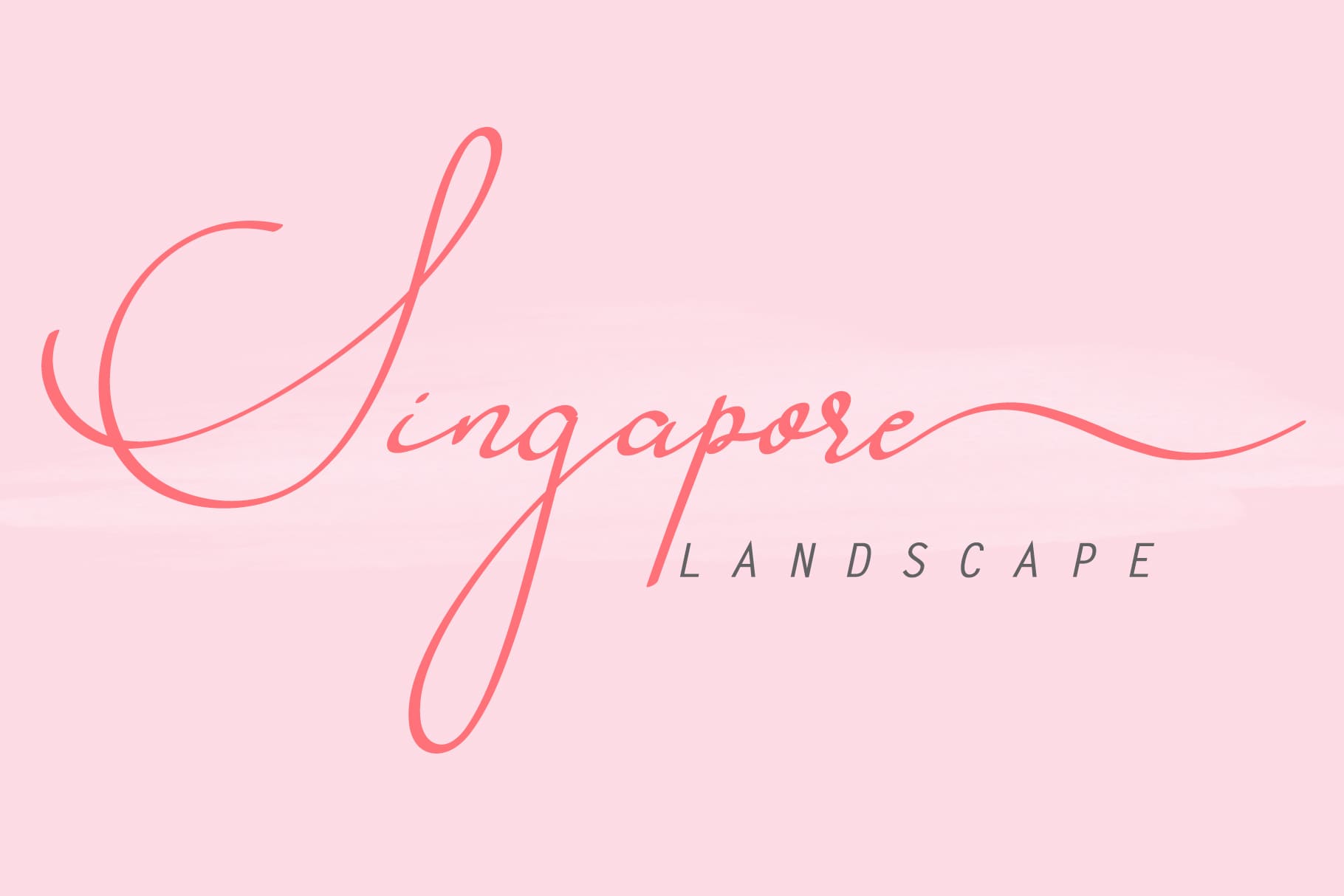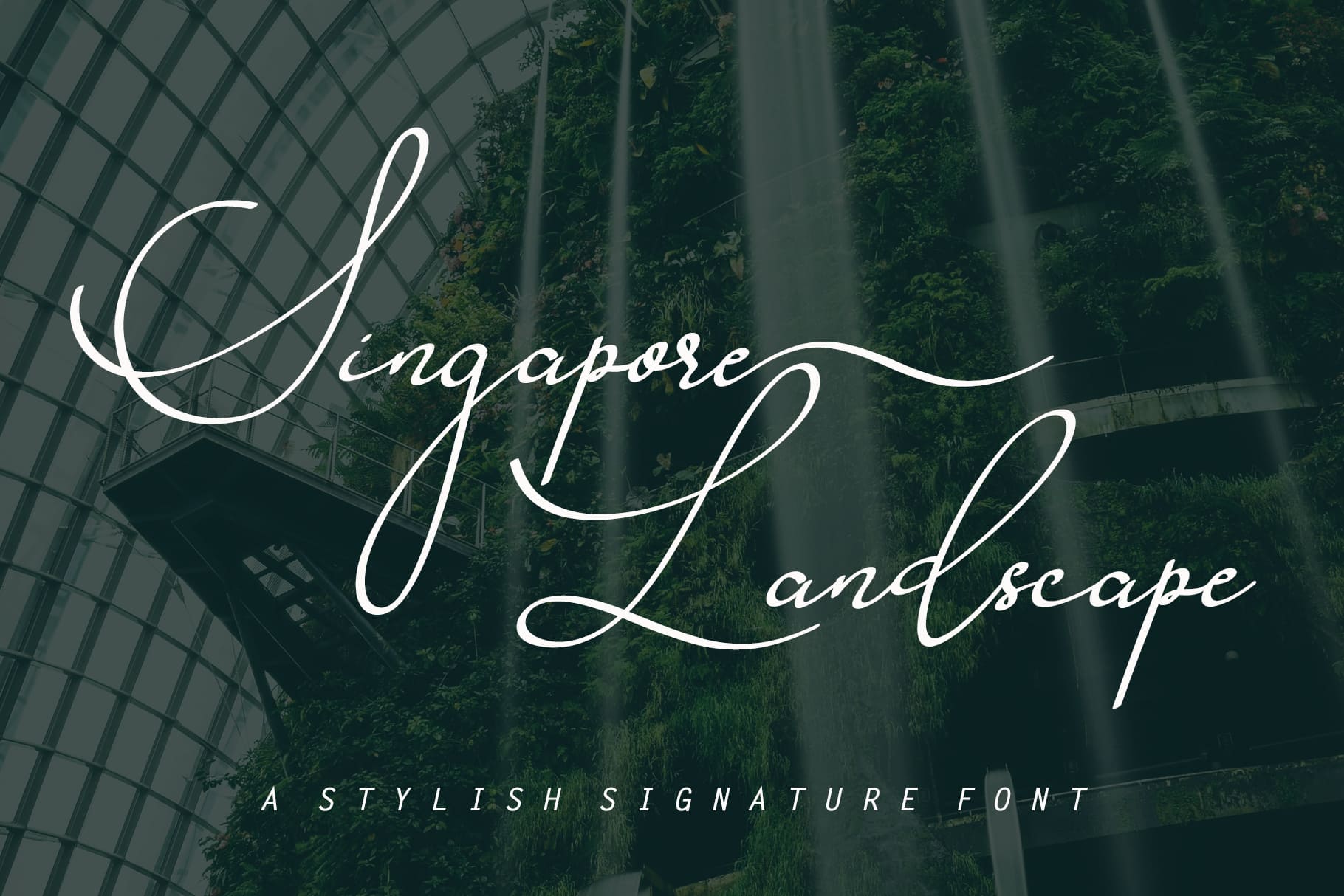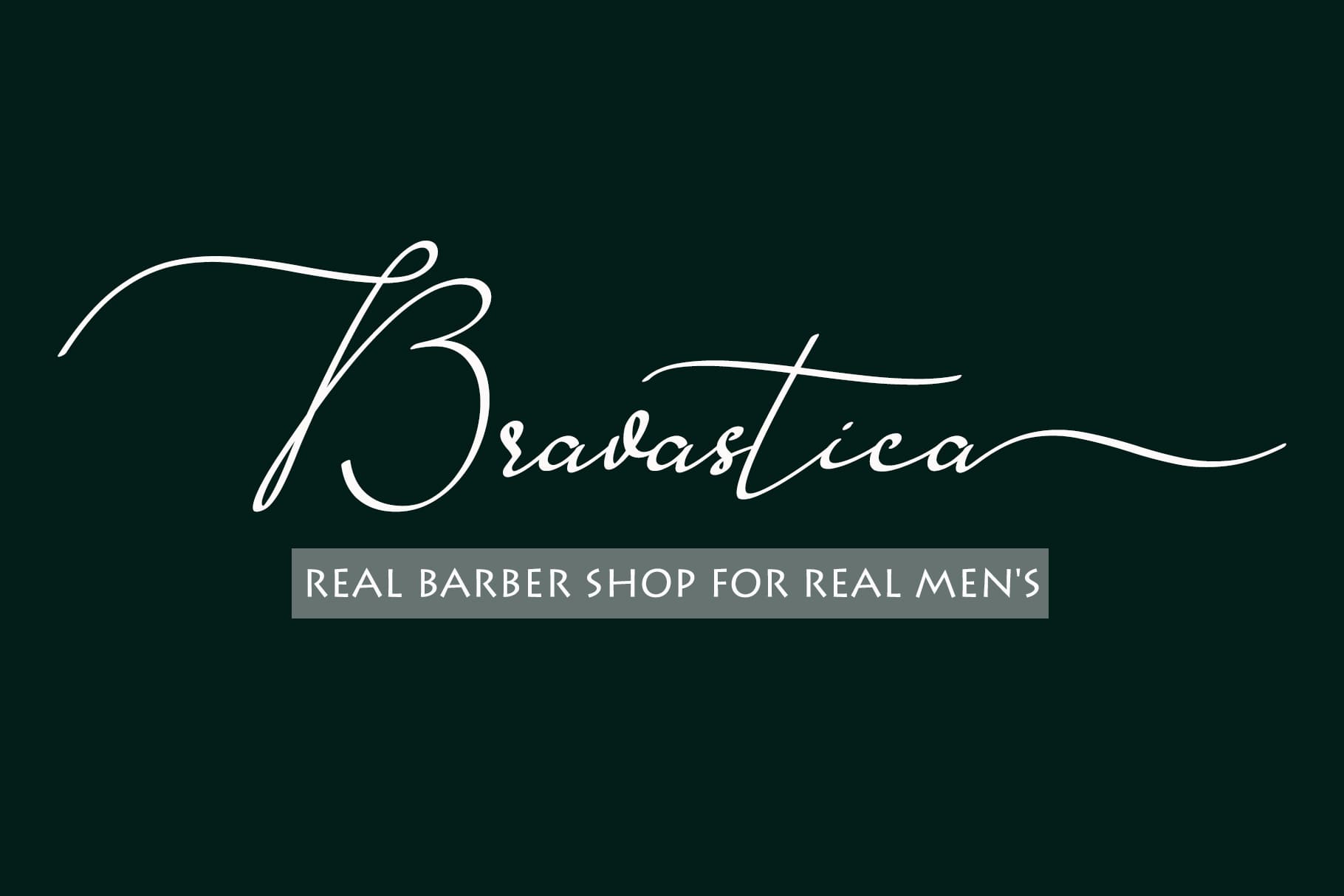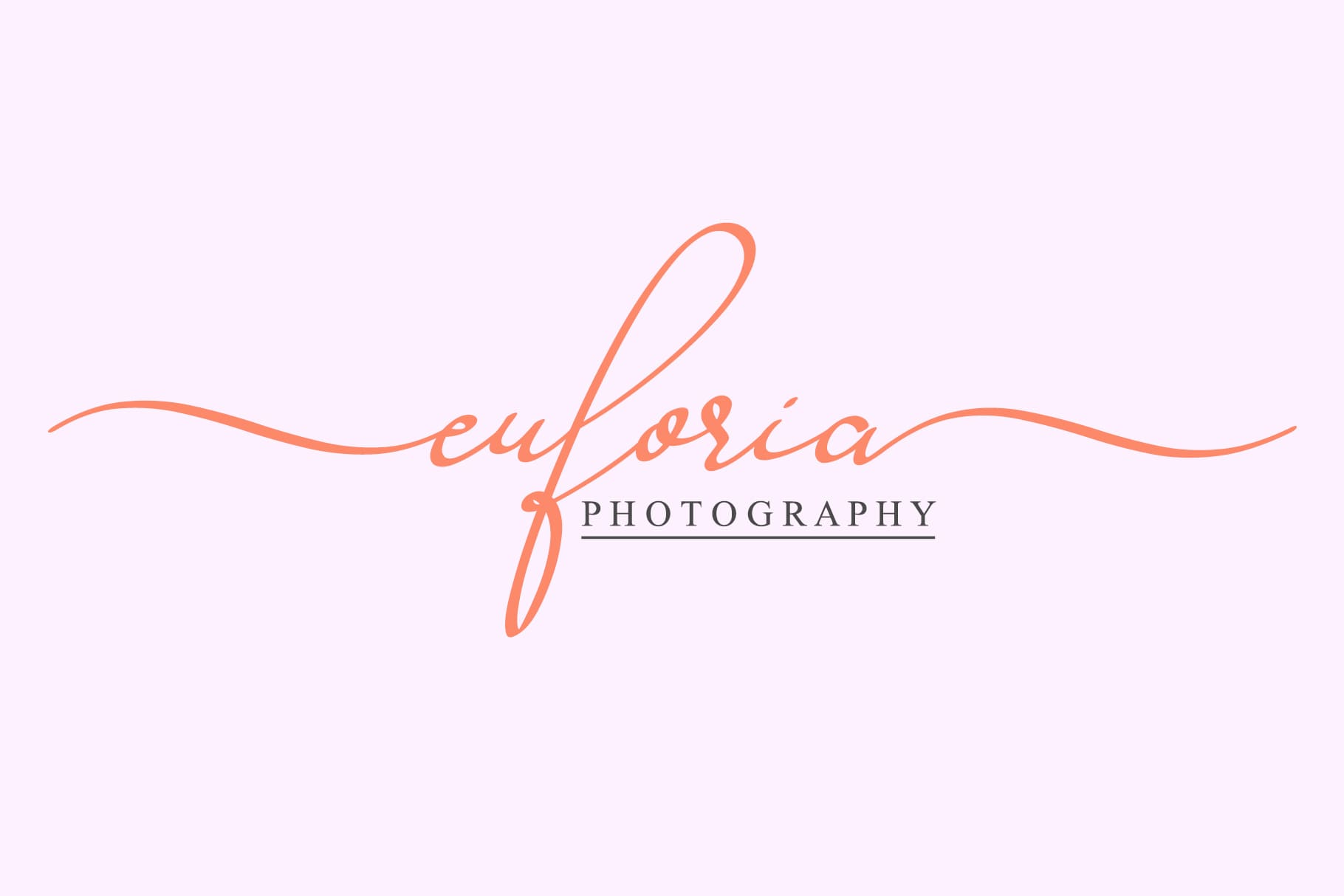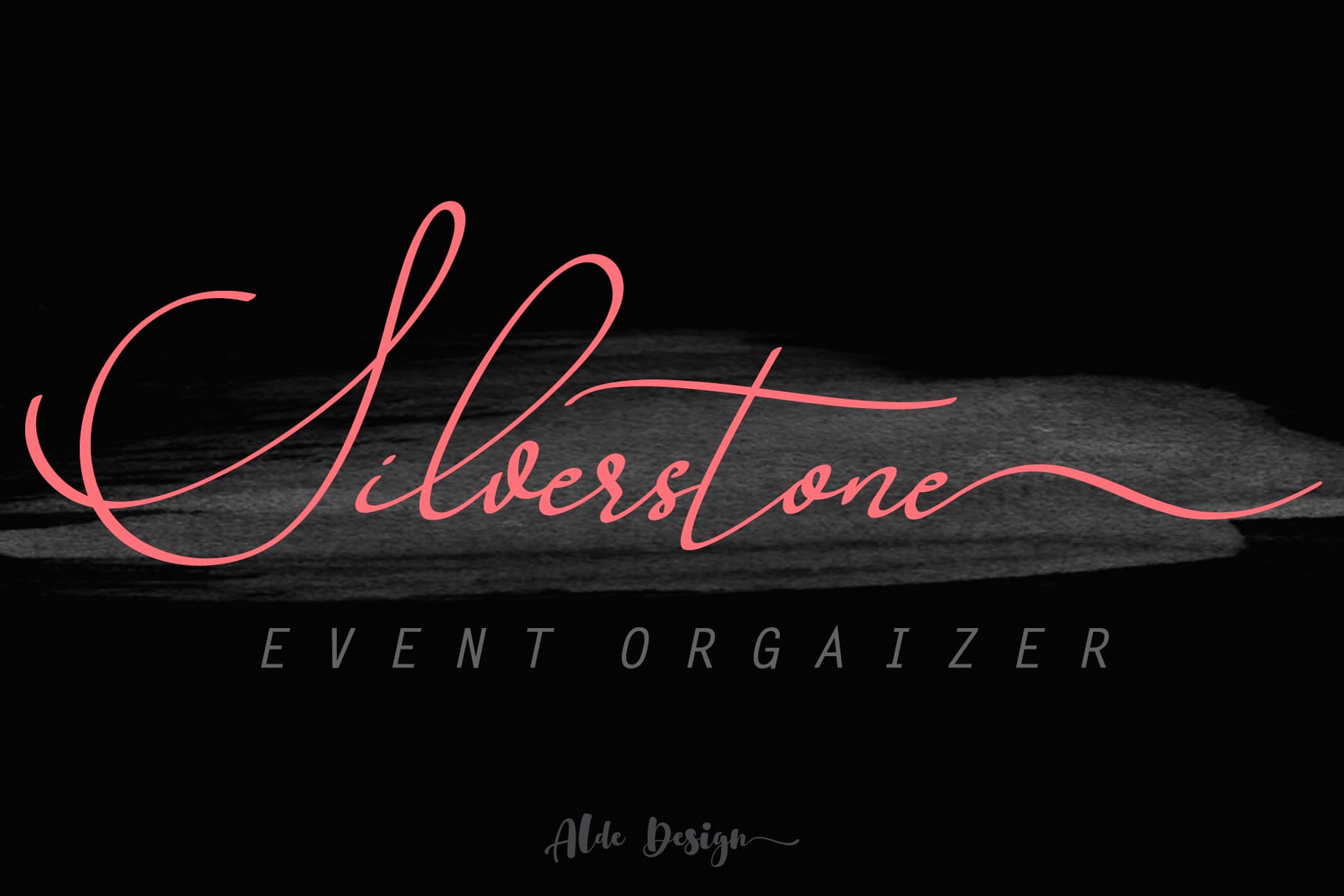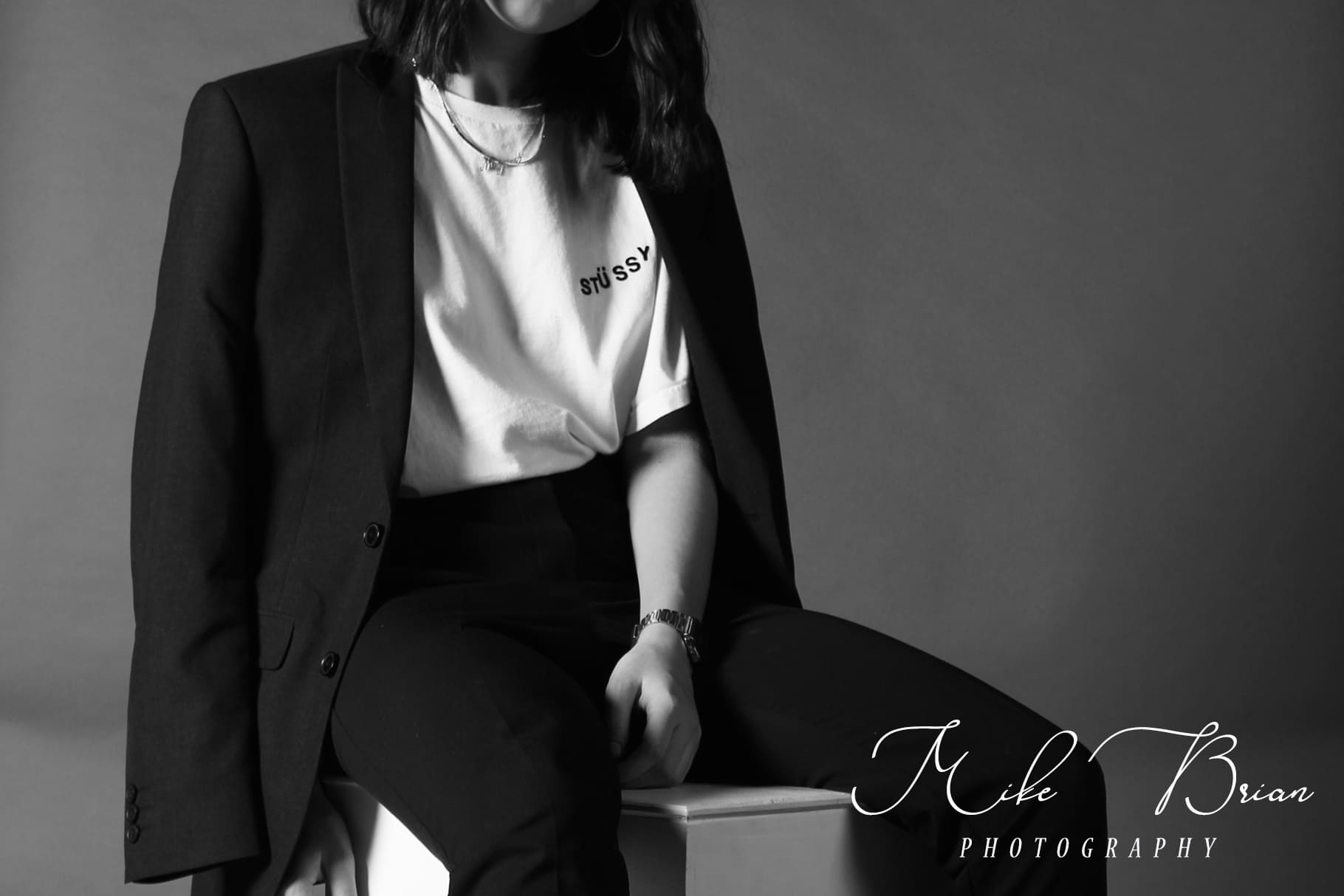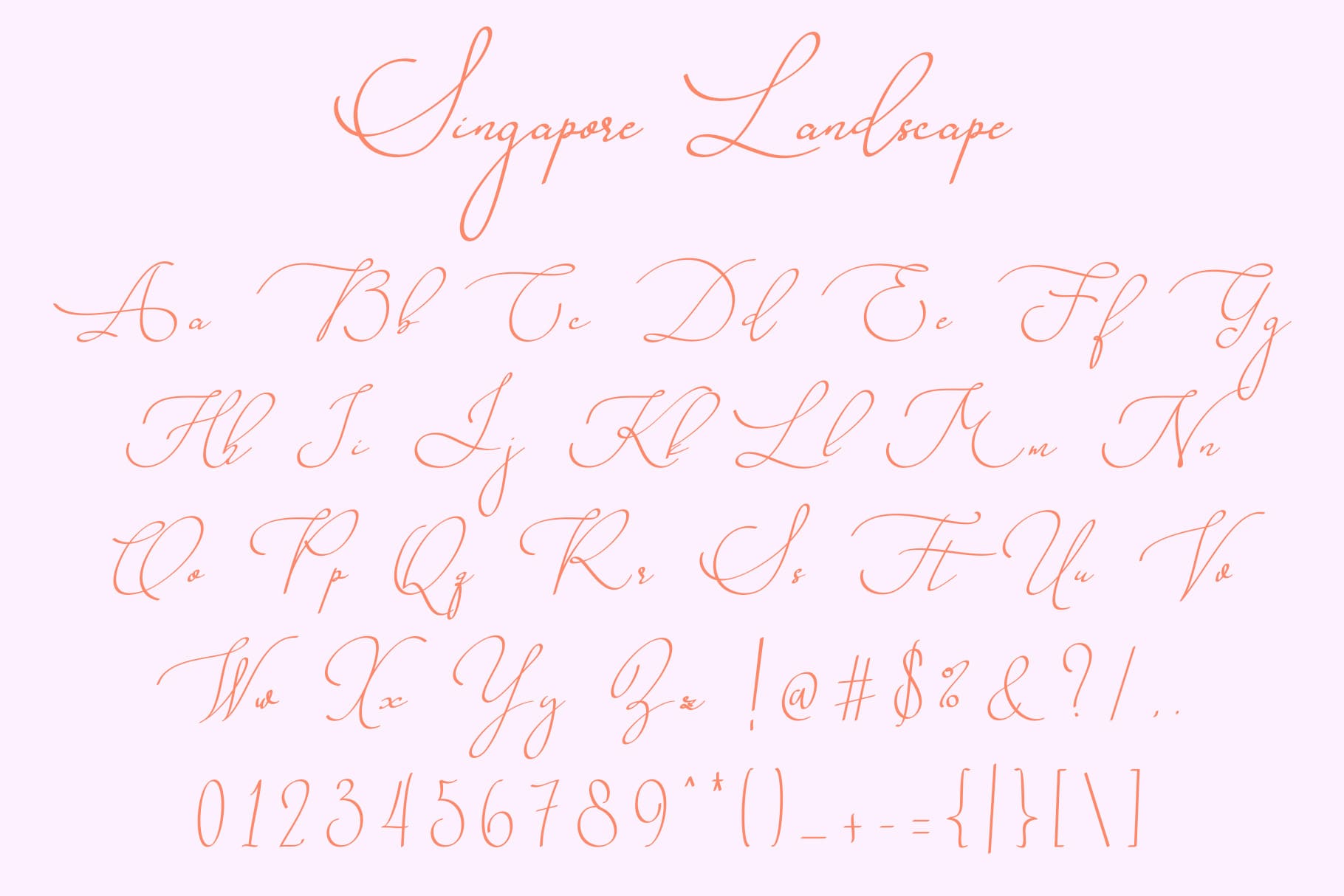
Singapore Landscape (1 font)
From AldeDesign
It is a great choice for branding, wedding invitations, photography, signature, logo design, album cover, business card, posters and many other design projects.